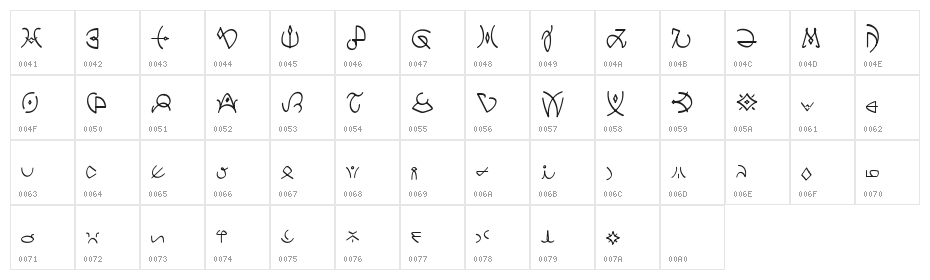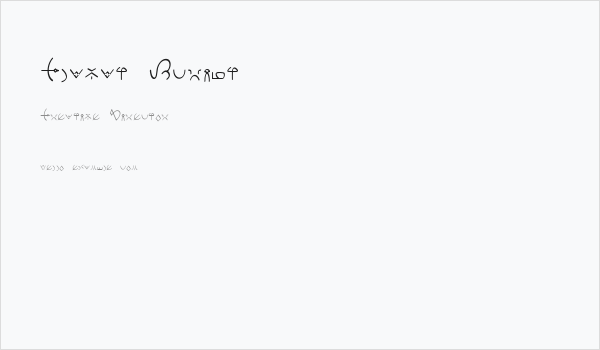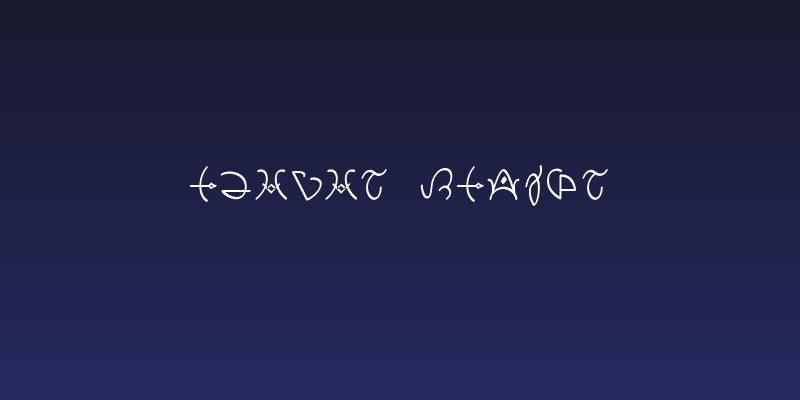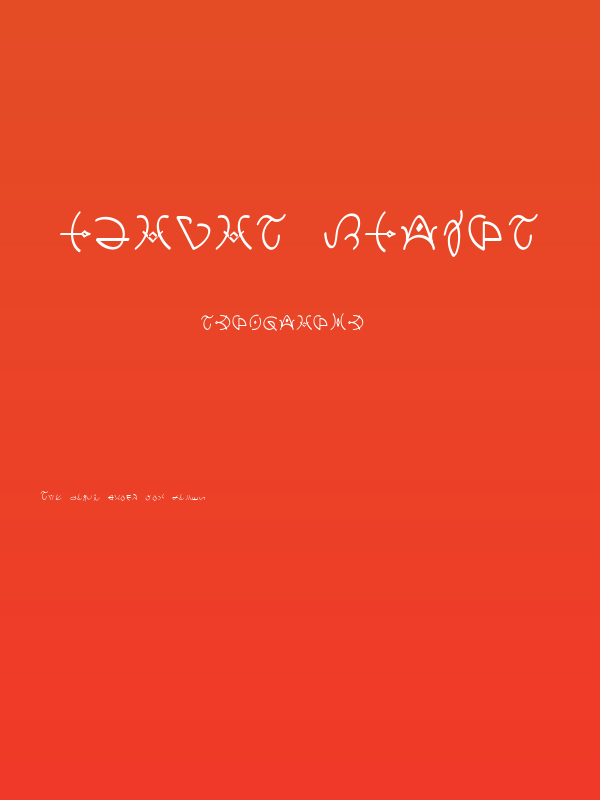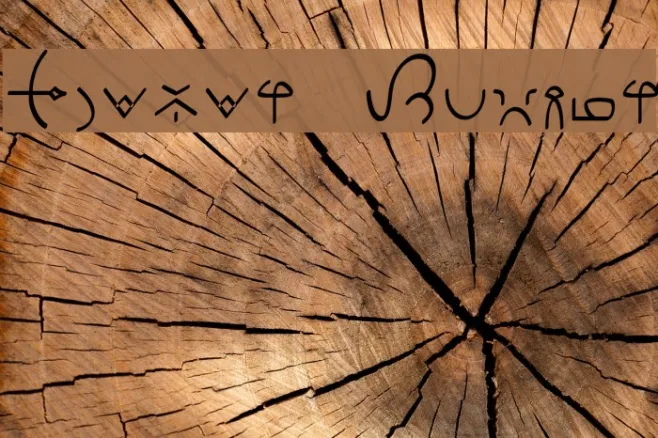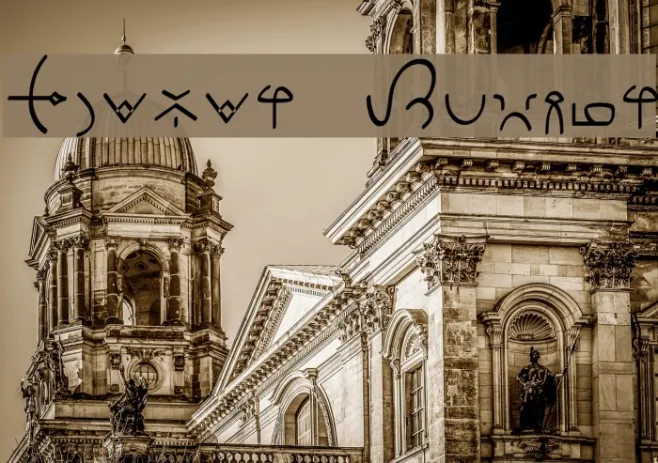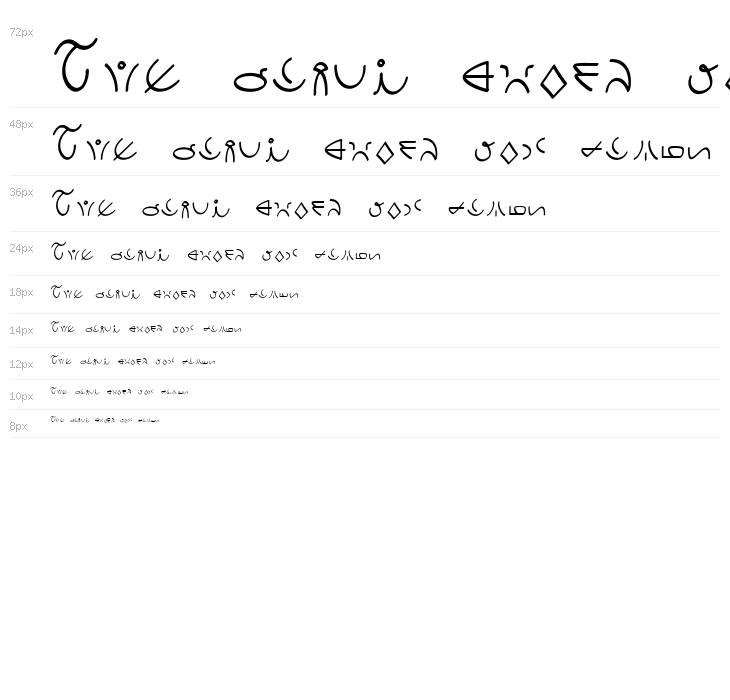
Clavat Script Font
Clavat Script Description
This font features a unique and artistic design, characterized by its abstract and symbolic shapes. Each character is crafted with intricate curves and lines, resembling ancient scripts or mystical symbols. The style is highly decorative, with a whimsical and imaginative flair that evokes a sense of mystery and fantasy. The characters are distinct and varied, with some incorporating geometric elements and others featuring more fluid, organic forms. This font is not suited for traditional text but rather for creative projects that require a touch of the extraordinary.
| Use Case | Logos, Artistic projects, Fantasy themes |
| Proposed Projects | Ideal for fantasy-themed designs, game interfaces, mystical or magical branding, and artistic posters. |